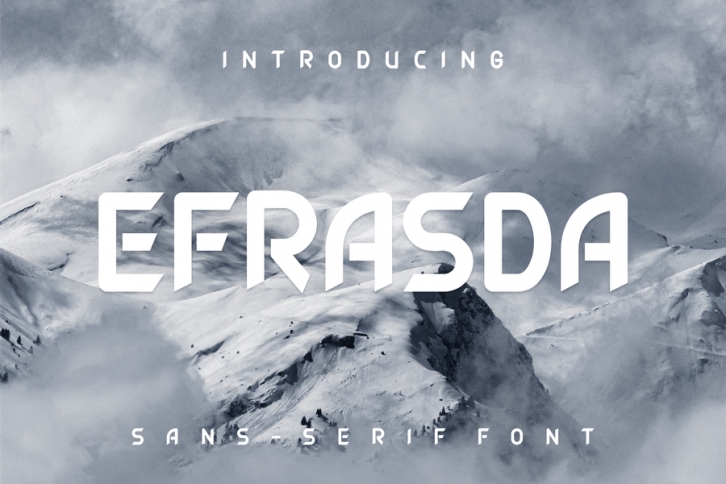
Efrasda is bold display font great for your next creative project such as logos, printed quotes, invitations, cards, product packaging, headers, Logotype, Letterhead, Poster, Design this font is great for your creative projects such as watermark on photography, and perfect for logos & branding, invitation, advertisements, product designs, stationery, wedding designs, label ,product packaging, special events or anything that need hand writing taste.